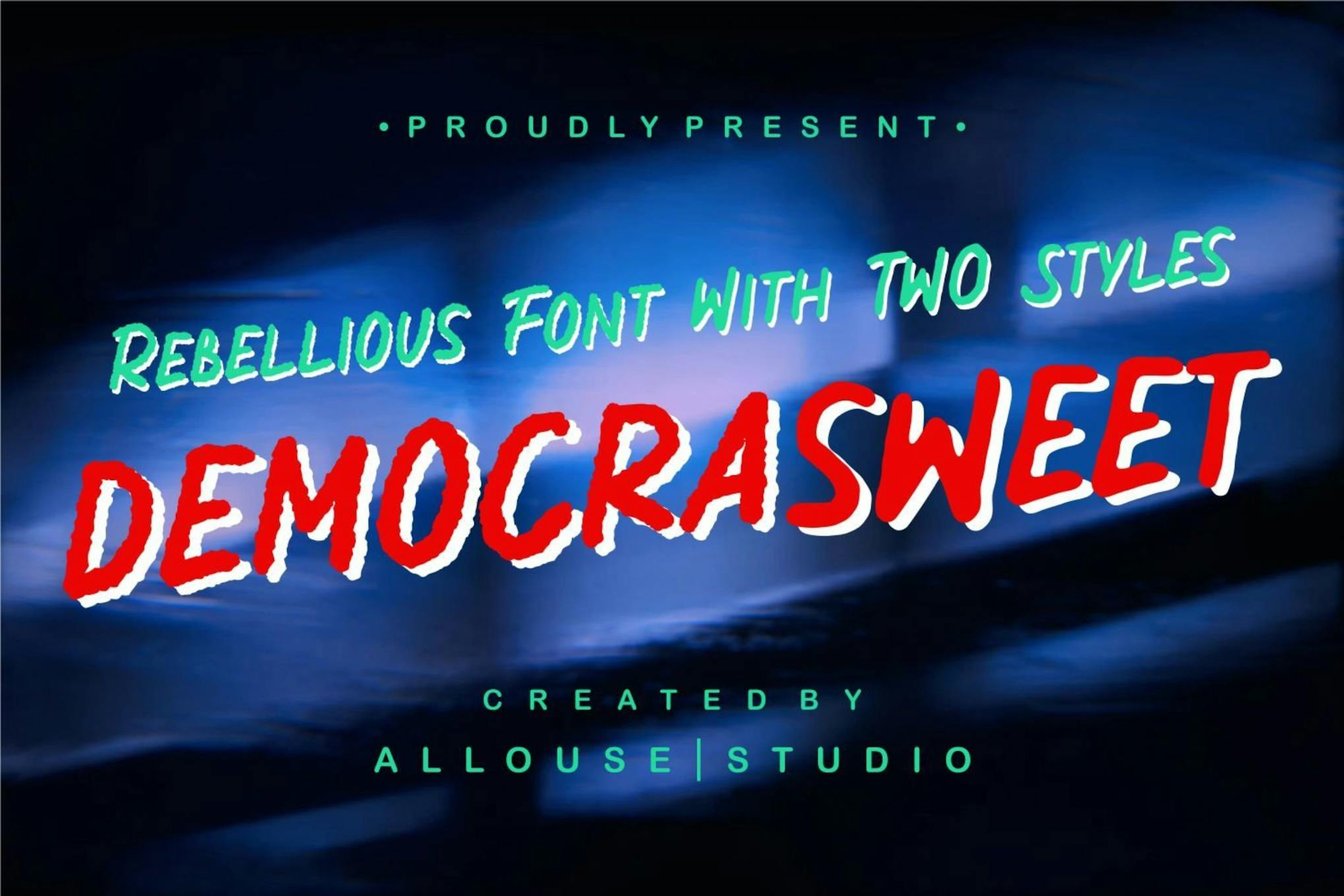
AL - Democrasweet Font
The AL - Democrasweet Font is perfect for candy store branding, sweet treat packaging, children's product design, playful bakery signage, colorful party invitations, fun social media graphics, joyful birthday celebrations, whimsical greeting cards, cheerful youth marketing, and delightful confectionery communications.
What makes the AL - Democrasweet Font so exciting is its delightful combination of playful sweetness with charming accessibility that creates an irresistibly joyful visual experience perfect for brands seeking to communicate happiness, fun, and genuine sweetness. This enchanting typeface features friendly letterforms, sweet character curves, and delightful design elements that perfectly capture the essence of candy-coated joy and innocent pleasure. The font's sweet personality and playful charm make it an exceptional choice for brands seeking to communicate joy, sweetness, and authentic happiness with memorable visual appeal that brings smiles to faces.
The AL - Democrasweet Font family includes playful variations and sweet alternates, featuring multiple character styles, decorative elements, and cheerful design options. Each variation maintains the signature sweet appeal while offering different levels of playful expression and joyful charm, giving designers extensive creative possibilities for crafting delightful communications and sweet brand personalities that capture hearts.
This exceptional AL - Democrasweet Font Free Download represents the perfect sweet typography solution for designers who want to infuse their projects with authentic joy and delightful sweetness that appeals to both children and adults. Whether you're developing candy brand identities, creating cheerful party materials, or designing playful youth marketing content, this versatile sweet font delivers charming results that resonate with audiences seeking genuine happiness and sweet experiences.
The charming sweet characteristics of AL - Democrasweet Font showcase masterful playful typography design, with each letter carefully crafted to evoke joy and sweetness while maintaining excellent readability and visual appeal across all applications. The font's comprehensive character set includes uppercase and lowercase letters, numerals, cheerful punctuation, and sweet symbols, ensuring complete functionality for diverse playful projects and international sweet communications.
Perfectly designed for both digital and print sweet applications, this wonderful font maintains its delightful character and joyful charm across various sizes and formats. From large-scale candy store displays to detailed sweet packaging designs, AL - Democrasweet Font adapts beautifully to any playful design challenge while preserving its distinctive sweet personality and charming appeal.